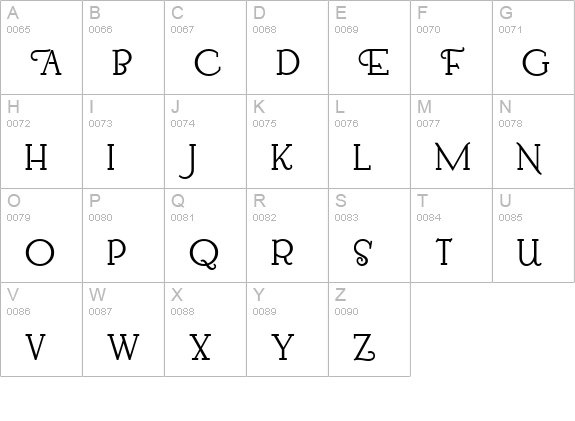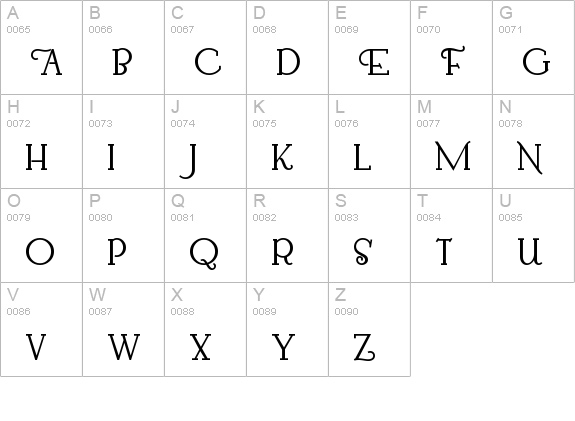
Duffys Tavern NF Font Details
Duffys Tavern NF font exudes vintage charm and nostalgic appeal, making it perfect for projects that require a touch of old-world elegance. With its classic letterforms and subtle irregularities, this typeface captures the essence of a bygone era while maintaining a timeless quality that is sure to enhance any design. Duffys Tavern NF is a versatile font that can be used for a variety of purposes, from branding to editorial design. What's even better is that Duffys Tavern NF font is completely free to download at FontsMarket.com. So, if you're looking to add a touch of vintage flair to your next project, look no further than Duffys Tavern NF font. Download it today and let your creativity shine with this beautiful and freely available typeface.